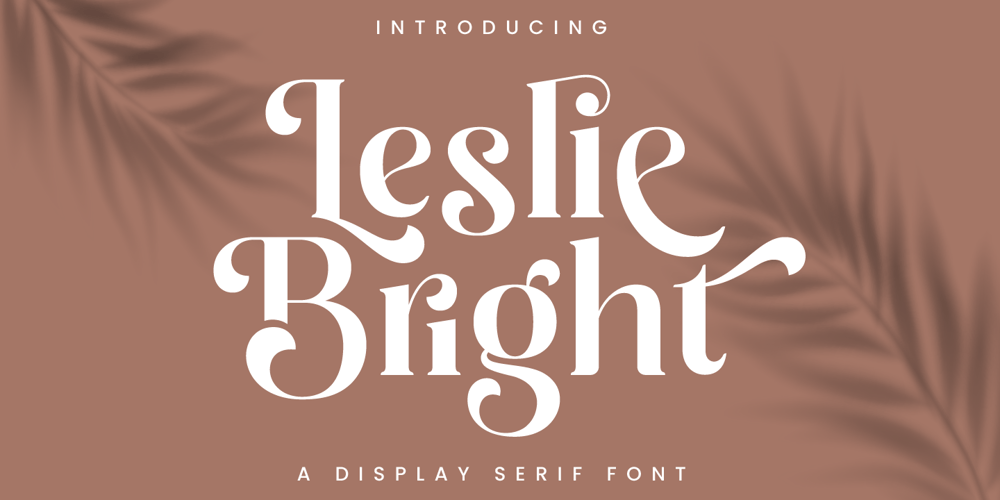
Leslie Bright
Leslie Bright font
Leslie Bright Font Family was designed by Hamzah Muhamad Ihsan and published by Typesthetic Studio. Leslie Bright contains 1 styles and family package options. Leslie Bright is a stunning display serif font with stylish and modern look alternates. This font includes 132 alternates and ligature also full set of uppercase and lowercase letters, multilingual symbols, numerals and punctuation. This font is PUA encoded, which means you can access all of the glyphs and swashes with ease!